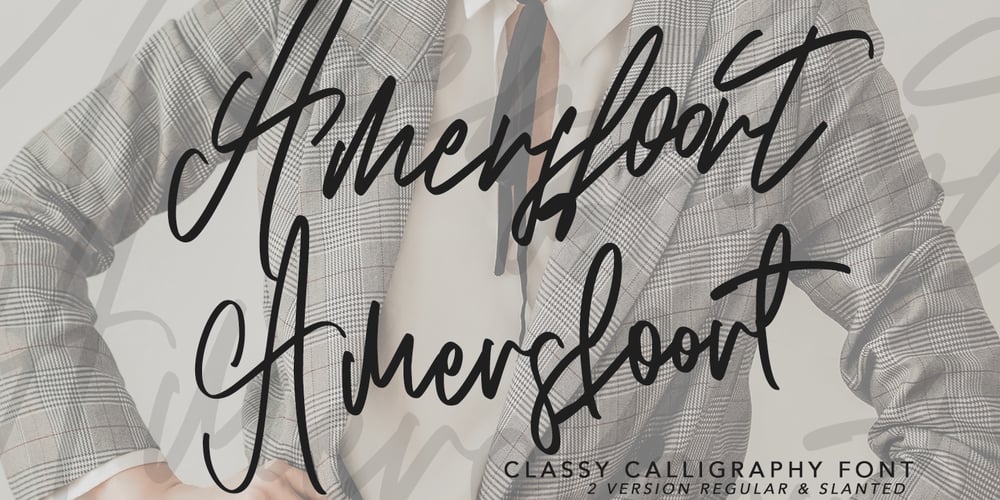
Amersfoort
Amersfoort font
Amersfoort Font Family was designed by Asep Rendi and published by Arendxstudio. Amersfoort contains 2 styles and family package options. Amersfoort Calligraphy Font with a natural & stylish flow. This collection of scripts is perfect for personal branding. this works well for many applications. Everything from personal branding & wedding invitations to advertising could benefit from this collection of signature fontsFeatures : • Character Set A-Z • Numerals & Punctuations (OpenType Standard) • Accents (Multilingual characters) • LigatureMultilingual Support :Afrikaans, Albanian, Asu, Basque, Bemba, Bena, Catalan, Chiga, Cornish, Danish, English, Estonian, Faroese, Filipino, Finnish, French, Friulian, Galician, German, Gusii, Icelandic, Indonesian, Irish, Italian, Kabuverdianu, Kalenjin, Kinyarwanda, Low German, Luo, Luxembourgish, Luyia, Machame,Makhuwa-Meetto, Makonde, Malagasy, Malay, Manx, Morisyen, North Ndebele, Norwegian Bokmål, Norwegian Nynorsk, Nyankole, Oromo, Portuguese, Romansh, Rombo, Rundi, Rwa, Samburu, Sango, Sangu, Scottish Gaelic, Sena, Shambala, Shona, Soga, Somali, Spanish, Swahili, Swedish, Swiss German, Taita, Teso, Vunjo, ZuluThere it is! I really hope you enjoy it